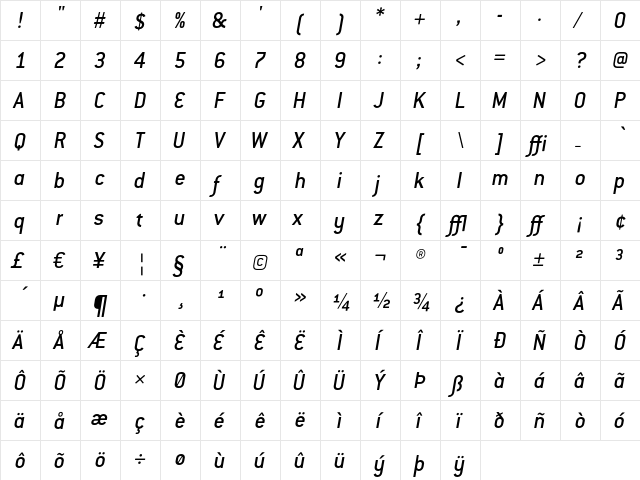
ConduitITC MediumItalic
Design Context for ConduitITC Typeface
ConduitITC is a composed and adaptable typeface that performs quietly and consistently across a wide range of design contexts. The dynamic lean of this cut emphasises speed and emphasis in any layout. Its narrow stance lets it pack a punch even in space-constrained designs.
Pro Tip: Try ConduitITC for annotation and caption copy alongside an upright companion — the contrast in angle creates a dynamic but ordered typographic system.